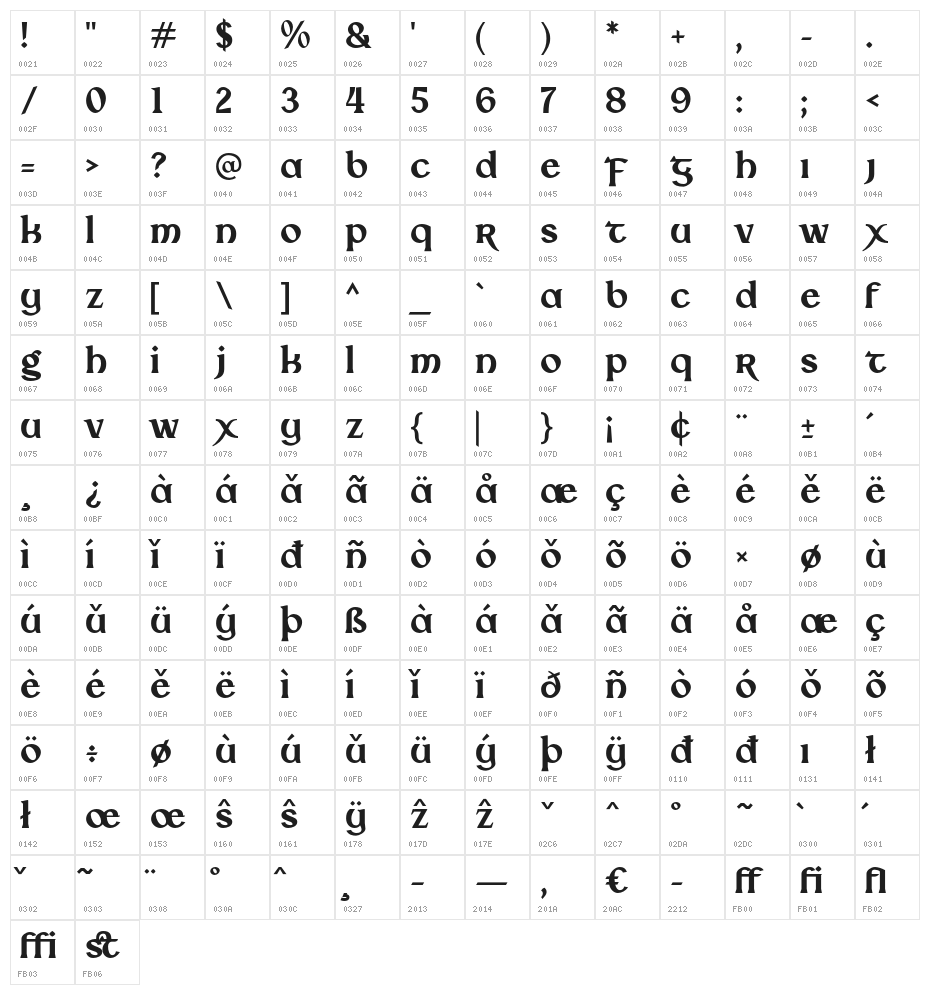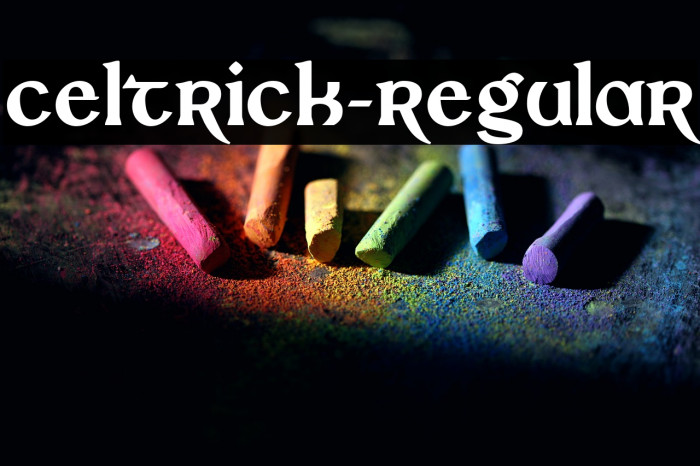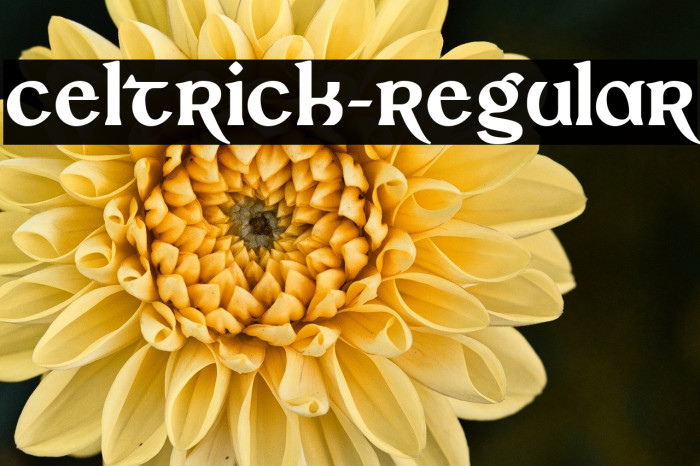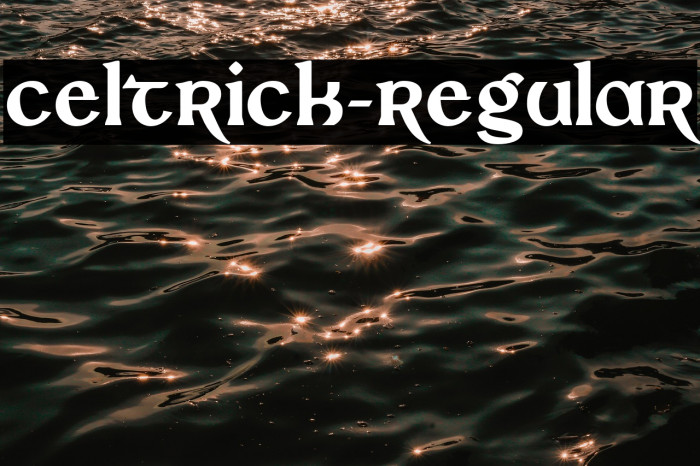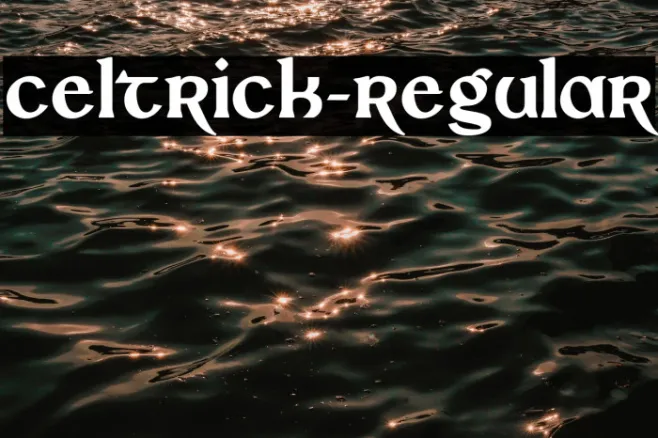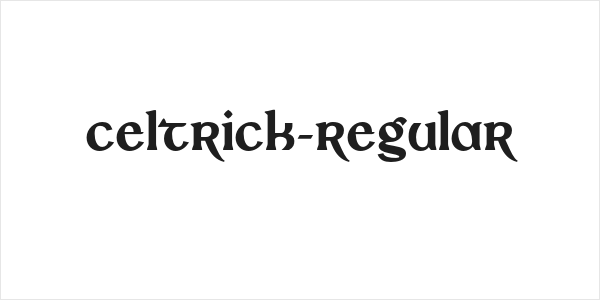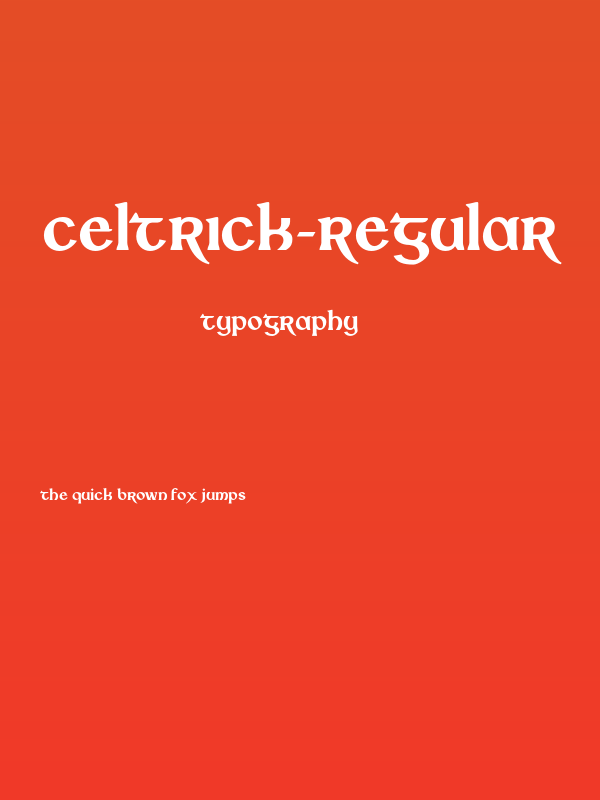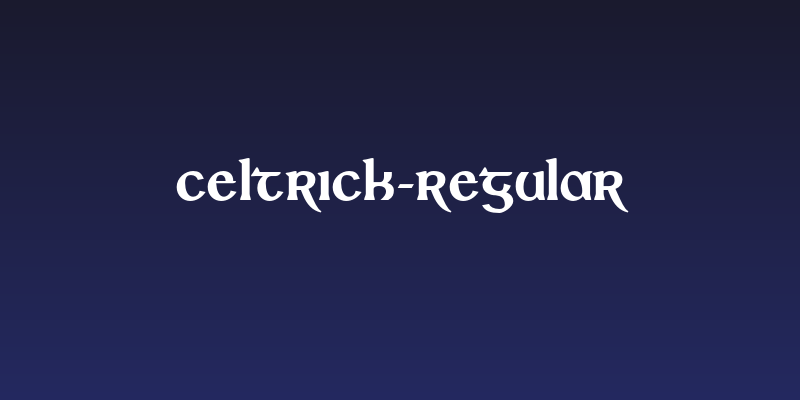
Celtrick-Regular Font
Celtrick-Regular Description
This font features a distinctive and bold design with a medieval flair, characterized by its sharp serifs and unique angular strokes. The uppercase and lowercase letters exhibit a consistent style, with a strong emphasis on vertical lines and pointed edges. The numerals are equally bold, maintaining the same stylistic elements as the letters. Special characters are designed to complement the overall aesthetic, making the font suitable for decorative purposes. The font's design is reminiscent of historical scripts, yet it maintains a modern touch, making it versatile for various creative applications.
| Proposed Projects | Ideal for fantasy-themed projects, book covers, posters, and branding that requires a historical or mythical touch. |